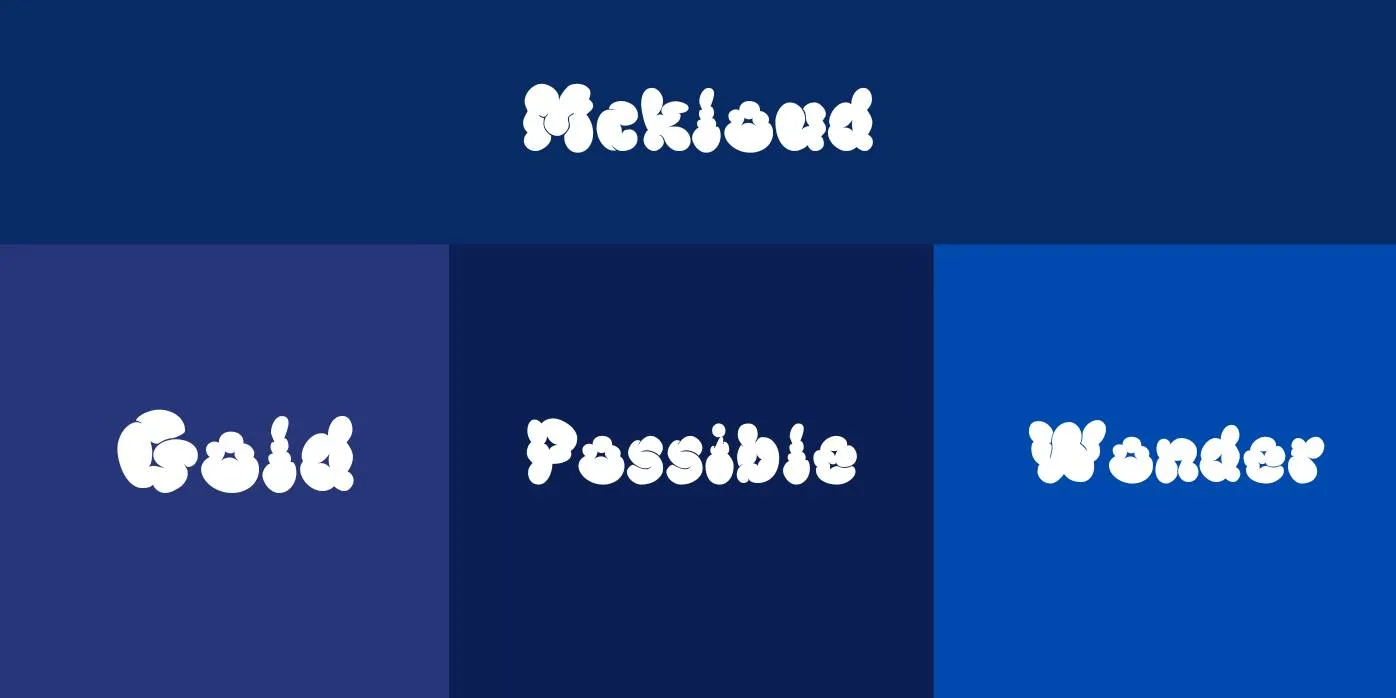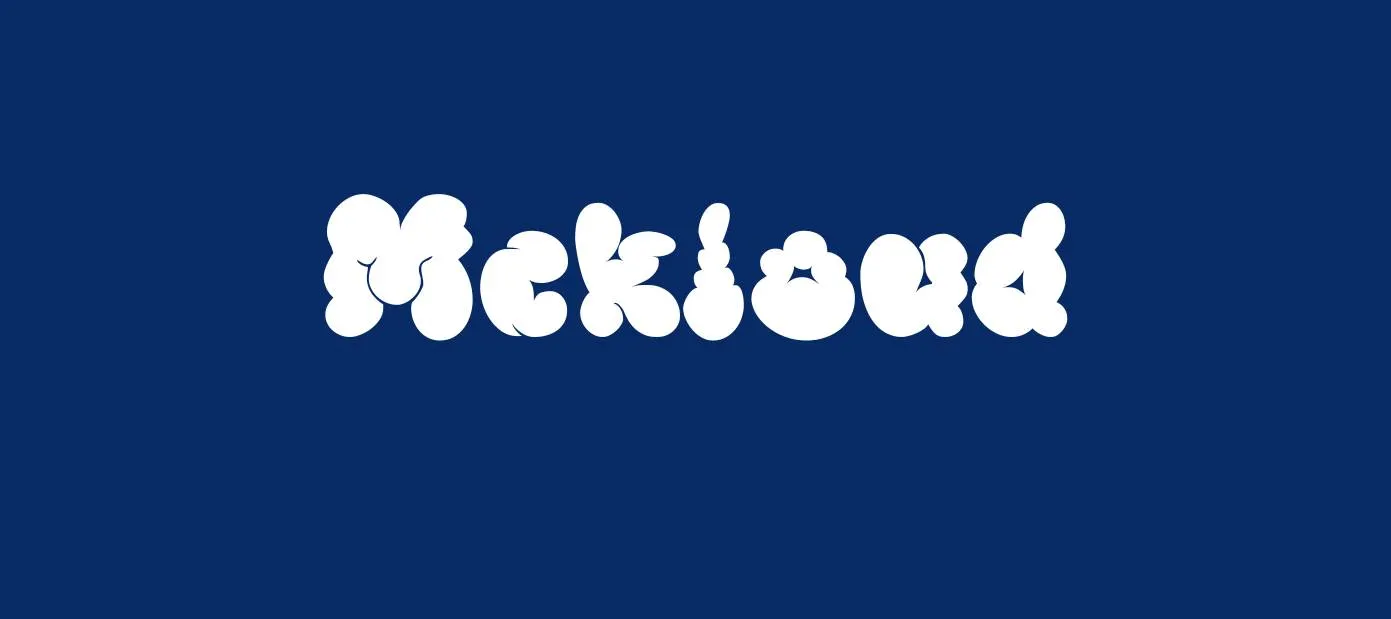
Mckloud Font
Mckloud Font was designed by a famous design team Jessica Slater and Apostrophic Labs. It was initially launched in 2001. This stunning font has many different weights and styles. The weight of this font is bold and its width is medium.
It contains 269 characters, 238 glyphs, and 1000 units per Em. It can also be used for both personal and commercial projects. This font contains 6 different styles such as Mckloud Misty, Mckloud Shadow, Mackloud Strom, Mckloud Tempest, and Mckloud White. This is a very attractive fancy font that is used widely in the making of cartoon projects.
An online generator tool also supports this font in which you can convert your simple text into this font by copying and pasting your text in it. You can also use this font for pairing with other fonts like bubble bobble font to give a more attractive look to your projects. Usage All characters of this font are very bubbly and have a very attractive look, especially for kids. It has punctuation, symbols, small letters, capital letters, special characters, and numbers.
It is a very versatile font and you make video game titles and logos by using this font. This font can also be used for printing T-shirts, mugs, and other fabrics. You can also use it for making greeting cards, invitation cards, and fora a kids-themed party decorations to give a very decorative look to your projects. It can also be used in all of your editing software including Photoshop, Canva, Illustrator, Word, etc.
You can make many different projects by using this font as well and attractive logos can be made for different brands and organizations.